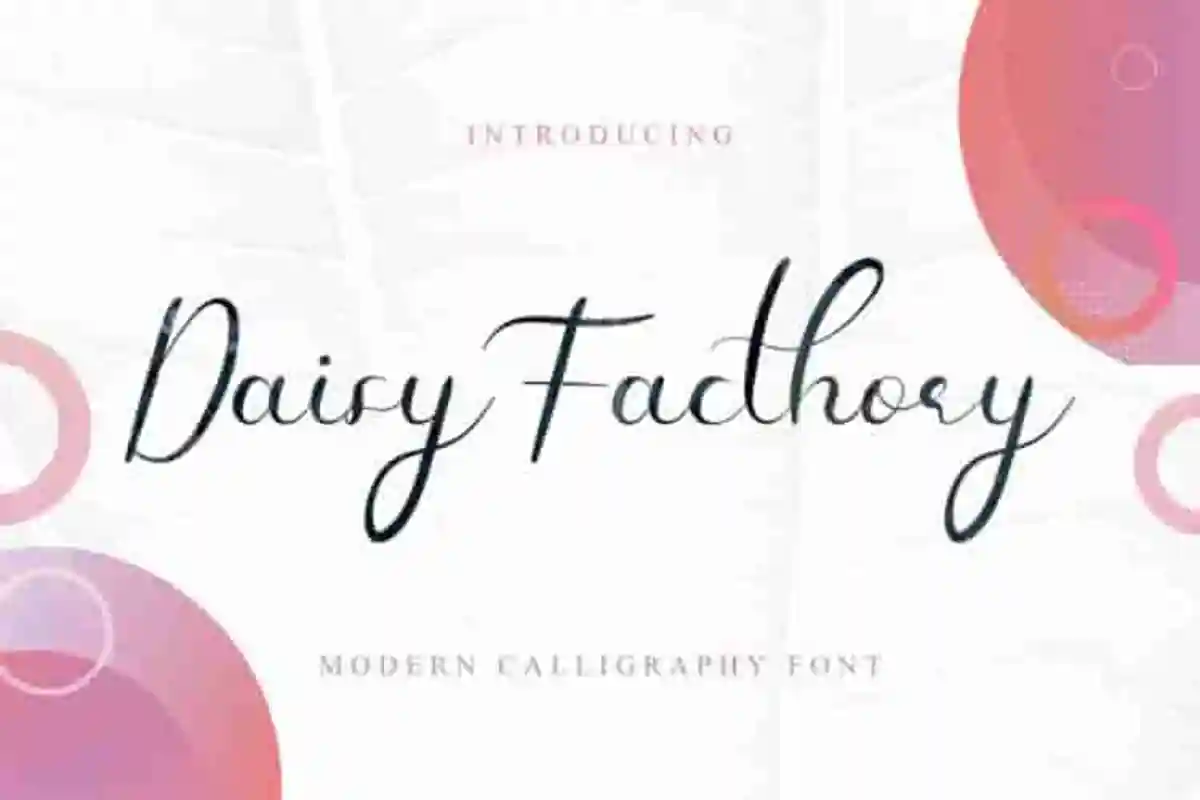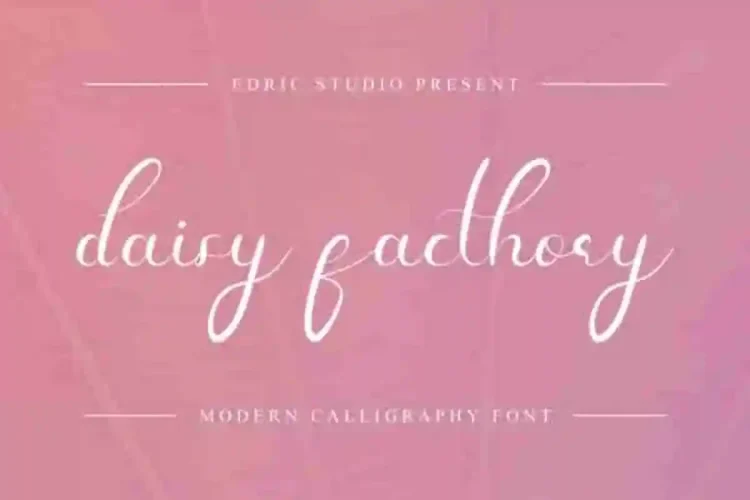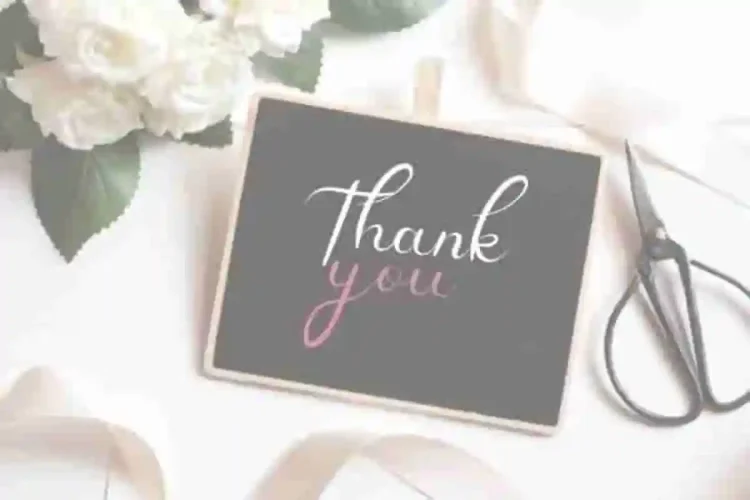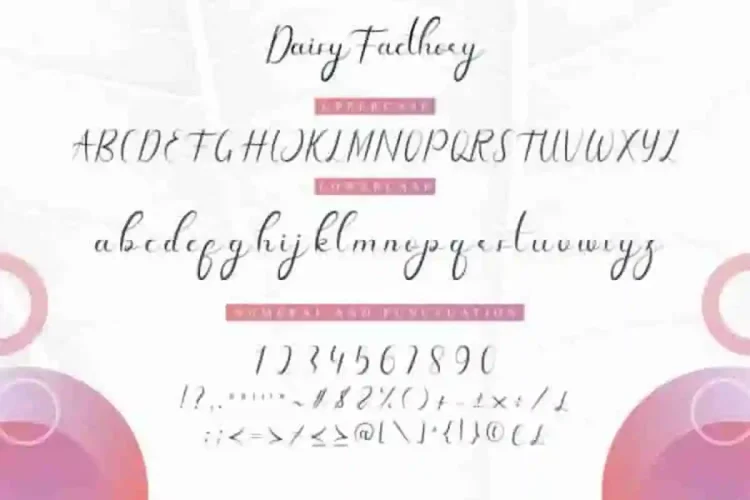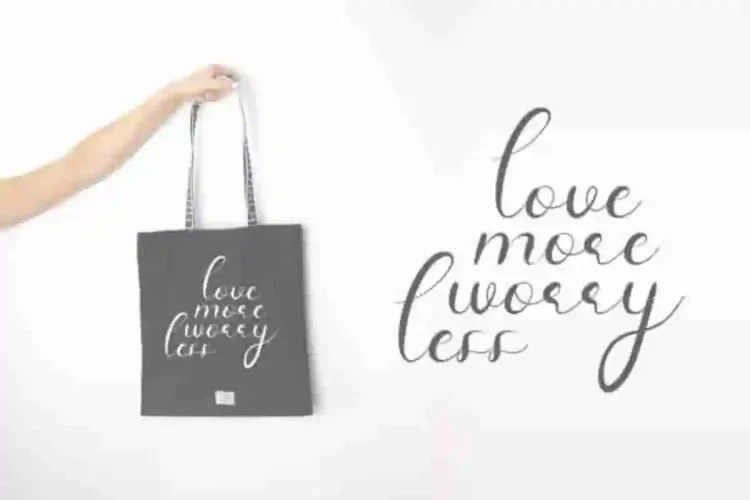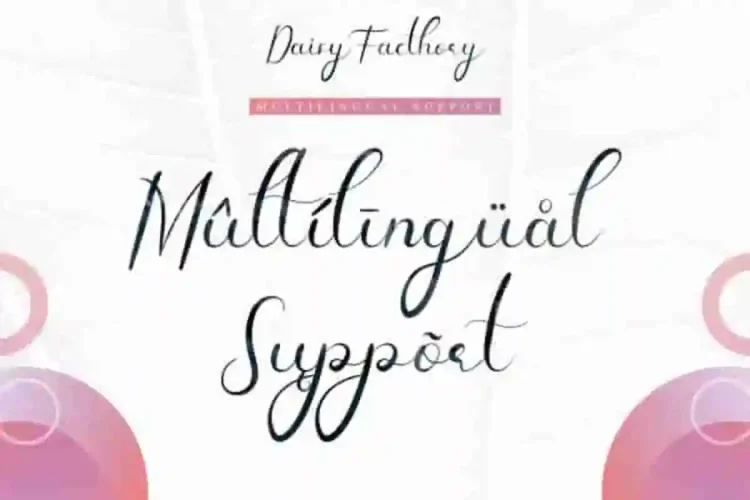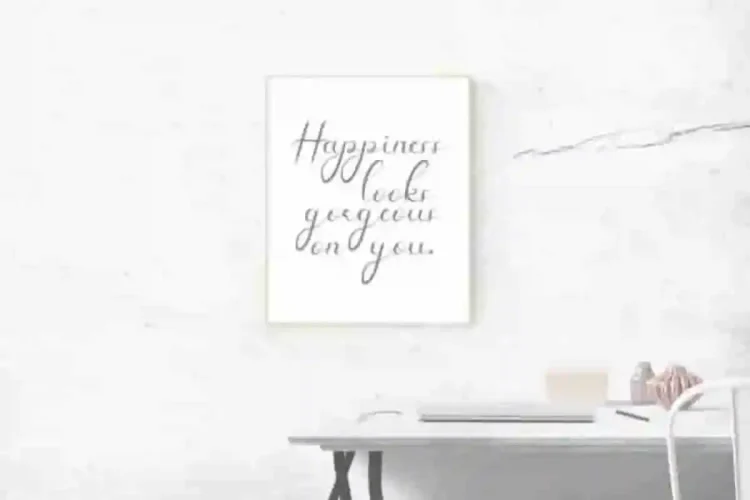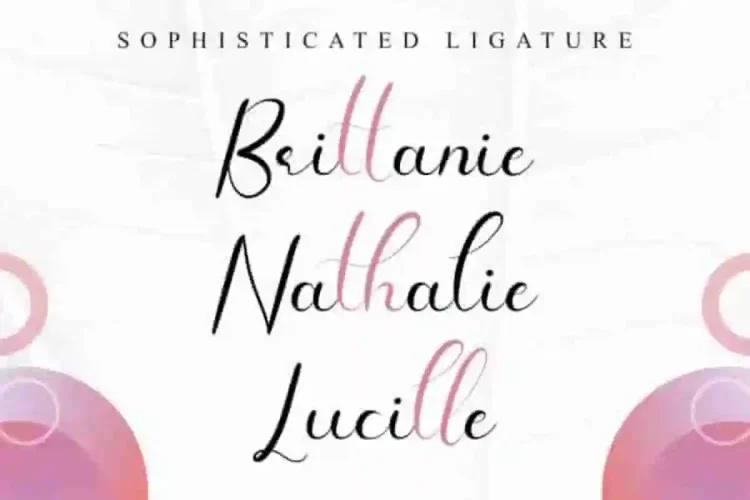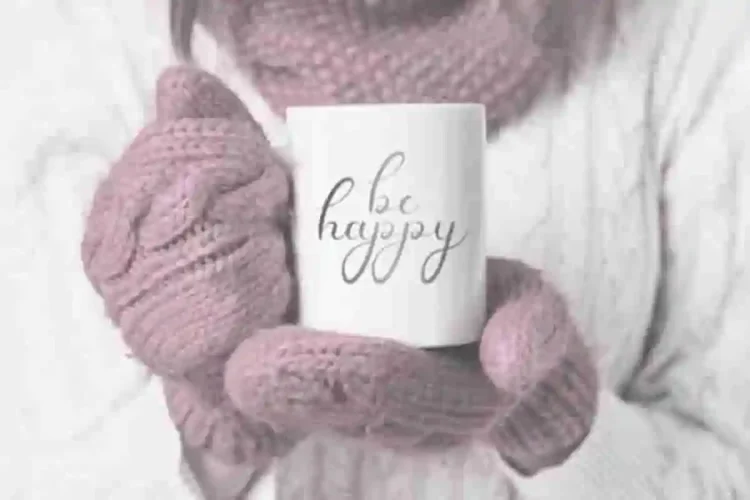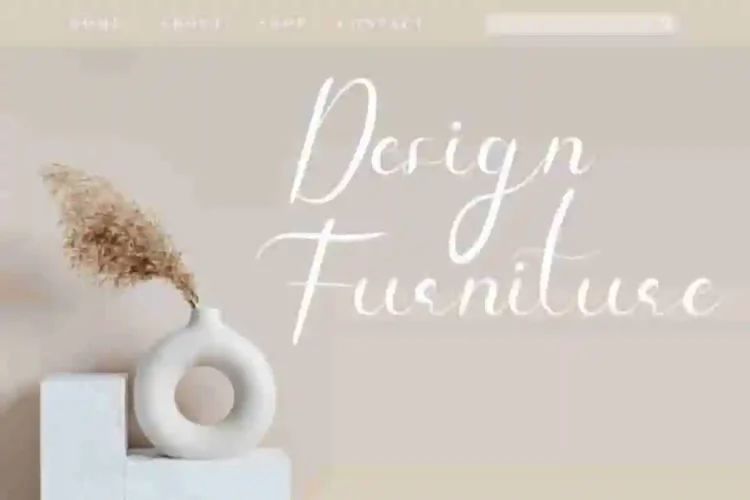
Daisy Facthory Calligraphy Script Font
Introducing our newest beautiful font   : Daisy Facthory Calligraphy Script Font
This is a Calligraphy font, handcrafted from our Studio here in, Indonesia. The artists/designers of this beautiful tyeface is Widiyanti and Sarah Suci.
Daisy Facthory Fontis an exclusive calligraphy script typeface with brush style. This font has a stunning characters set, perfectly managed with well spaced and kerning. The theme style of this font will elegant, luxury, glamour, gold, vintage, stylish, sophisticated and classic brush calligraphic style.
Daisy Facthory Font will be great for any projects including : branding, logo, stationery, business card, signage, flyer, brochure etc. Almost all industries will be match for this typeface: wedding, events, real estate, architect, law firm, florist, gardening, makeup artist, travel, hotel, musician etc.